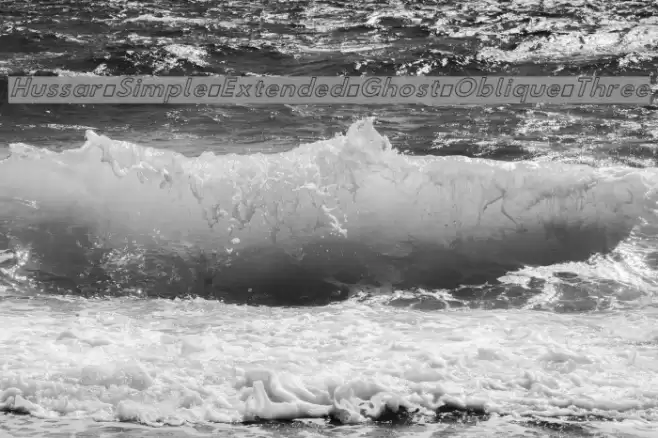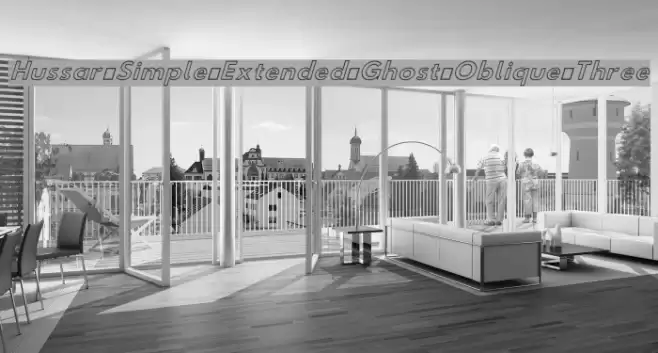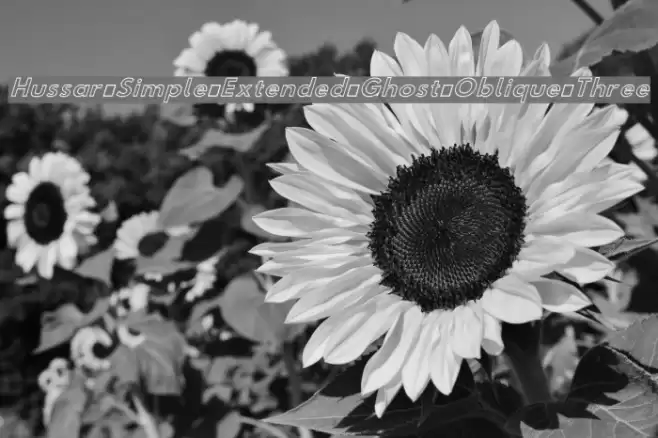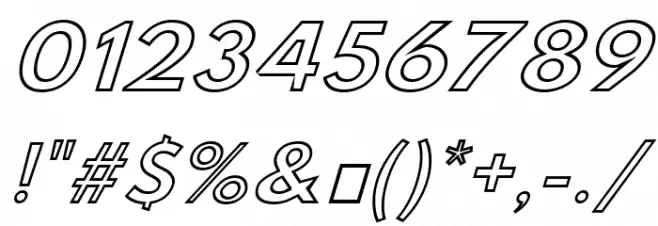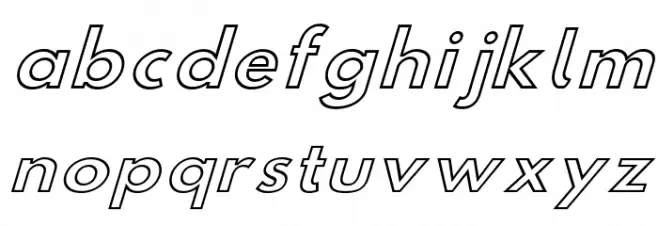
Hussar Simple Extended Ghost Oblique Three
This font features a modern and sleek design with an oblique orientation, giving it a dynamic and forward-leaning appearance. The characters are outlined, creating a ghostly effect that adds a unique and stylish touch. The extended width of the letters provides a spacious and open feel, enhancing readability while maintaining a contemporary aesthetic. The font's clean lines and minimalistic style make it versatile for various design applications. Its distinct outline and oblique slant make it stand out, offering a fresh take on traditional typography.
A modern, outlined oblique font with extended width and a sleek, dynamic style.
- Proposed Projects: Ideal for branding, advertising, and editorial design projects where a modern and distinctive look is desired.
- Width: Expanded